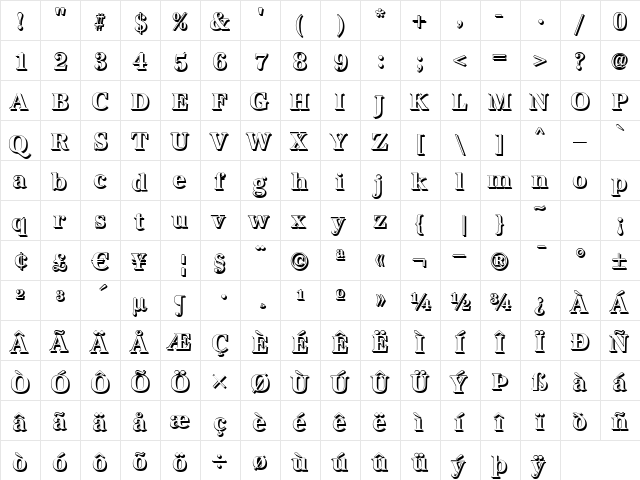
AntiquaSh-Cd Bold
Design Context for AntiquaSh-Cd Typeface
AntiquaSh-Cd offers clean, dependable letterforms without strong stylistic allegiance, making it a practical choice for designers who need flexibility. Its bold stroke weight gives it real presence on the page.